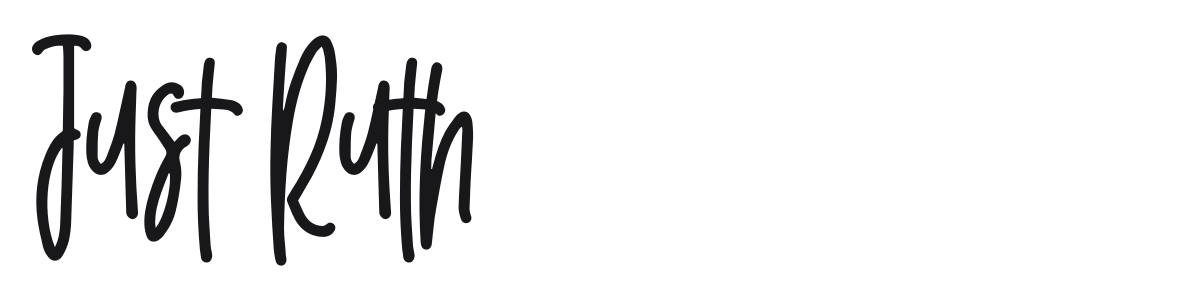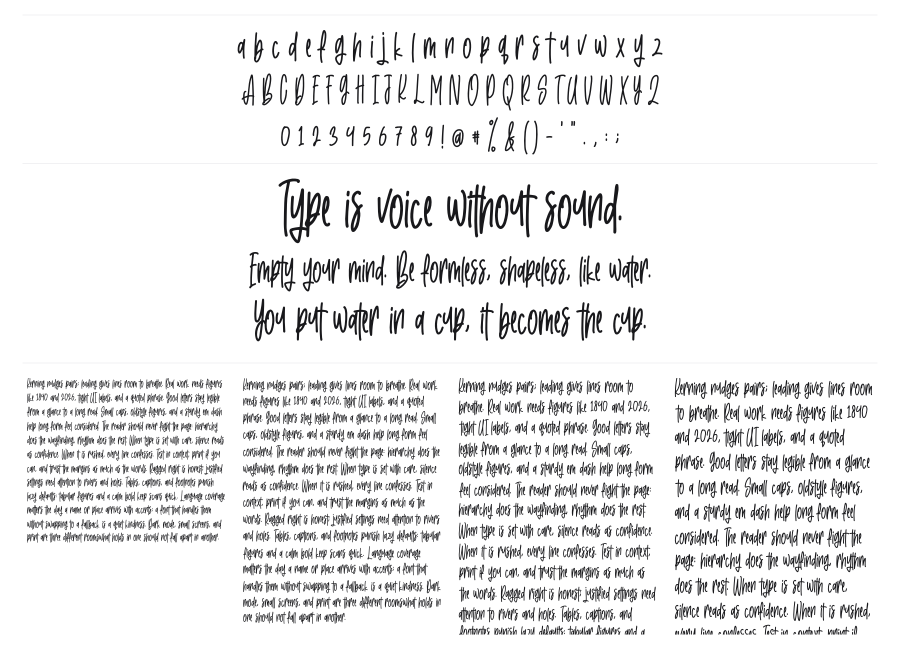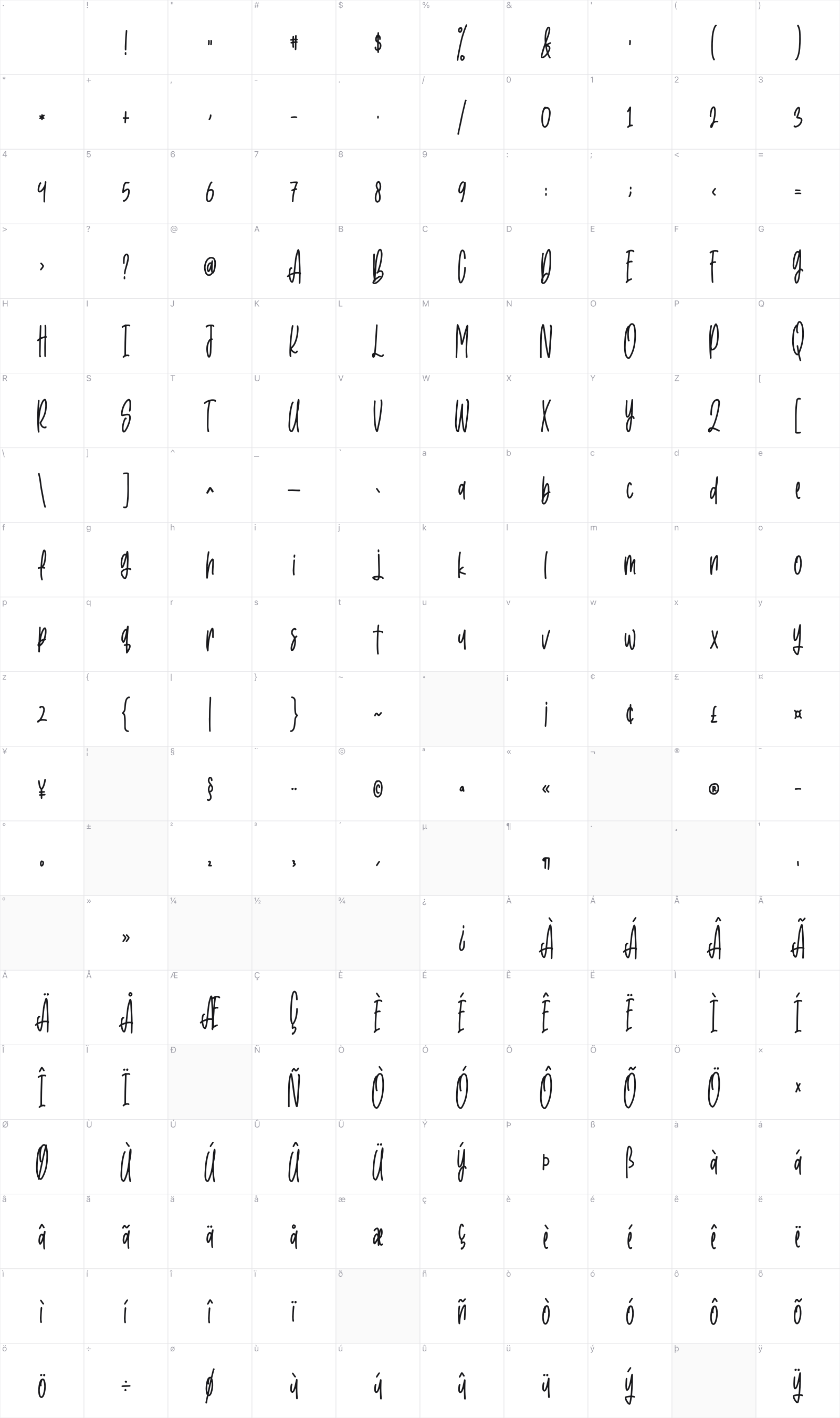
Just Ruth
Just Ruth is a casual handwritten script with a bouncy, spontaneous rhythm and genuine pen-drawn warmth. The tall ascenders and connected strokes give it energy without feeling rushed, landing somewhere between neat everyday handwriting and a carefully crafted brush script. It works well anywhere a personal, human touch is needed: cards, packaging labels, social graphics, or album artwork.